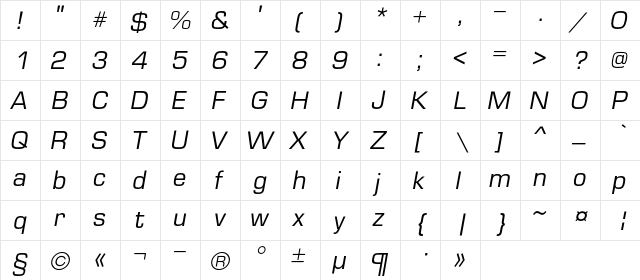
EuropeC Italic
Design Context for EuropeC Typeface
EuropeC offers clean, dependable letterforms without strong stylistic allegiance, making it a practical choice for designers who need flexibility. The dynamic lean of this cut emphasises speed and emphasis in any layout.
Pro Tip: Try EuropeC for annotation and caption copy alongside an upright companion — the contrast in angle creates a dynamic but ordered typographic system.